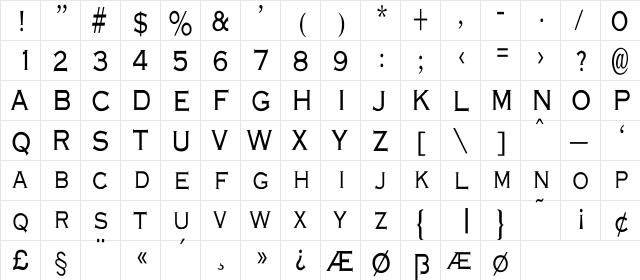
Engraver-Light Cn Regular Font Preview
Engraver-Light Cn Regular
Design Context for Engraver-Light Cn Typeface
Engraver-Light Cn is a composed and adaptable typeface that performs quietly and consistently across a wide range of design contexts. Its slender proportions lend an understated elegance to any composition.